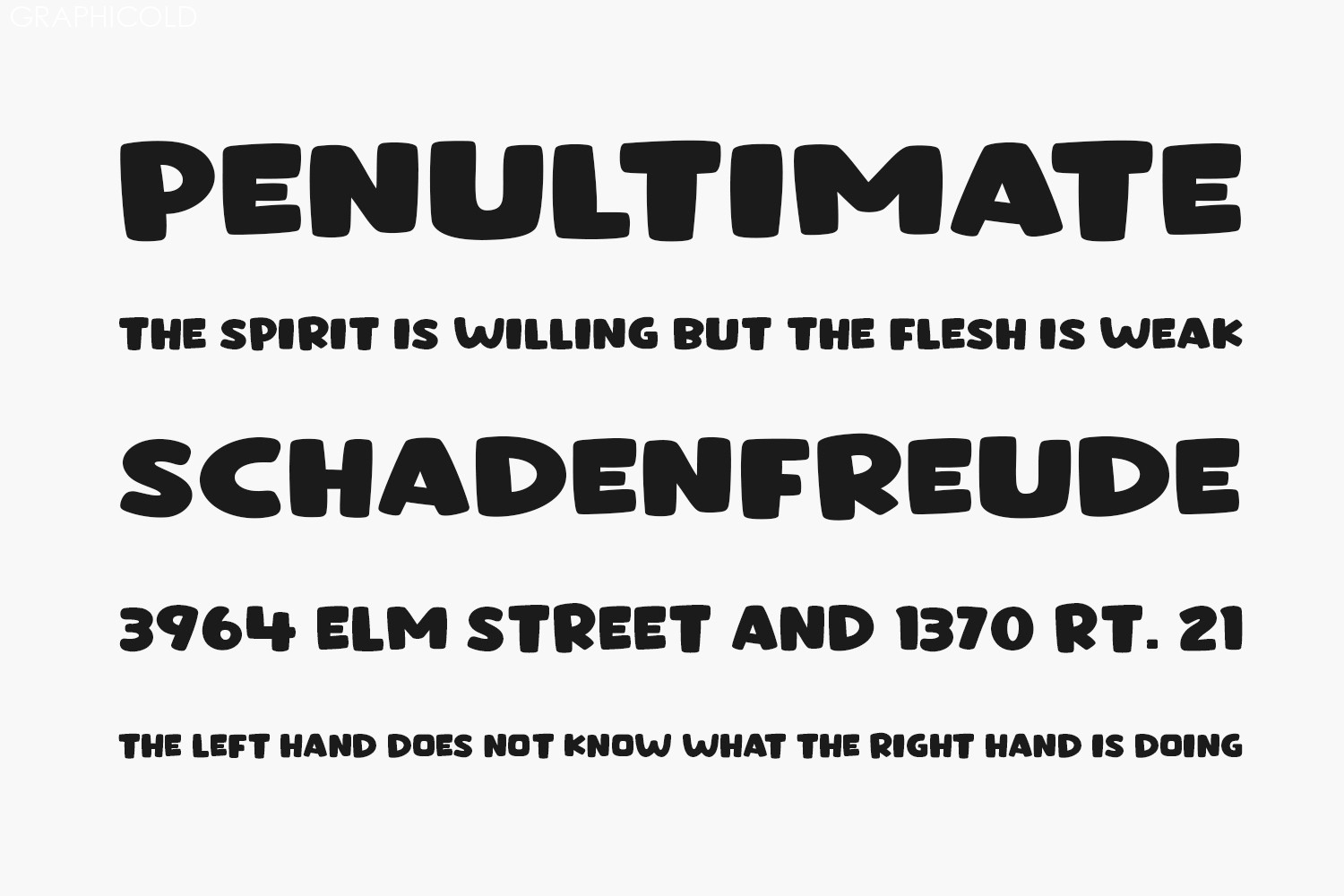
Title: crispy tofu font: The Deliciously Versatile Typeface Revolutionizing Illustrations
Introduction:
In the world of graphic design and illustrations, fonts play a crucial role in conveying the right message and setting the tone for the artwork. Among the vast array of font styles available, one typeface has taken the creative industry by storm – the irresistible Crispy Tofu Font. This delightful and versatile typeface has emerged as a game-changer, offering a unique blend of creativity and charm to designers and illustrators worldwide.
1. What Makes Crispy Tofu Font So Special?
Crispy Tofu Font is not your run-of-the-mill typeface. It boasts a distinctively playful and artistic aesthetic, making it an ideal choice for illustrations across various genres. With its hand-drawn appearance, the font adds a touch of authenticity and warmth to any design project, elevating it from ordinary to extraordinary. Whether you’re working on a children’s book, a whimsical logo, or a vibrant poster, Crispy Tofu Font can bring your vision to life.
2. Endless Creative Possibilities:
With Crispy Tofu Font, the possibilities are truly endless. Its versatility allows designers to explore a wide range of themes and moods, ensuring their illustrations resonate with the intended audience. From cute and cuddly characters to dynamic action scenes, this font effortlessly adapts to any style, breathing life into the illustrations with every stroke.
3. Crispy Tofu Font in Action:
Let’s dive into some examples of how Crispy Tofu Font has transformed illustrations across various domains.
a) Children’s Books: The whimsical nature of Crispy Tofu Font is a perfect fit for children’s books. Its ability to capture attention and evoke a sense of wonderment makes it an ideal choice for bringing characters and stories to life.
b) Branding and Logos: Crispy Tofu Font injects a dose of personality into logos, making them memorable and instantly recognizable. Its hand-drawn style adds a human touch, conveying a sense of authenticity and friendliness.
c) Social Media Graphics: In today’s digital age, eye-catching graphics are essential for social media success. Crispy Tofu Font shines in this realm, grabbing attention with its vibrant and playful demeanor, ensuring your posts stand out from the crowd.
4. How to Incorporate Crispy Tofu Font:
Now that you’re convinced of the wonders of Crispy Tofu Font, let’s explore how you can incorporate it into your own design projects.
a) Pairing with other fonts: Crispy Tofu Font looks stunning when combined with clean, minimalist sans-serif fonts. The contrast between the two styles creates a visually pleasing composition that enhances the overall design.
b) Experiment with various weights and styles: Crispy Tofu Font offers a range of weights and styles, allowing designers to experiment and find the perfect fit for their illustrations. Whether you choose a bolder or lighter version, each style brings its own unique charm.
Conclusion:
Crispy Tofu Font has revolutionized the world of illustrations and design, offering a delectable blend of creativity, versatility, and charm. Its hand-drawn aesthetic adds a touch of authenticity and warmth to any project, ensuring your artwork stands out from the crowd. Whether you’re working on a children’s book, branding, or social media graphics, Crispy Tofu Font is the secret ingredient for captivating illustrations that leave a lasting impression.